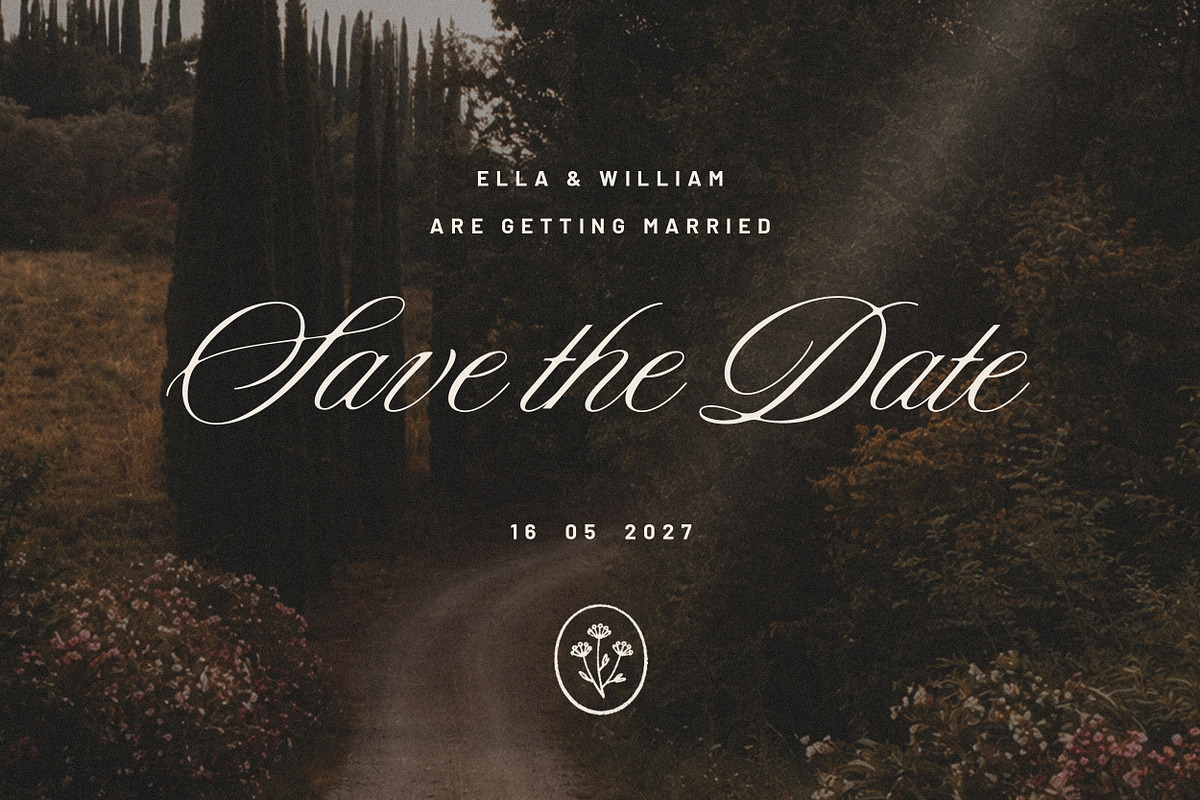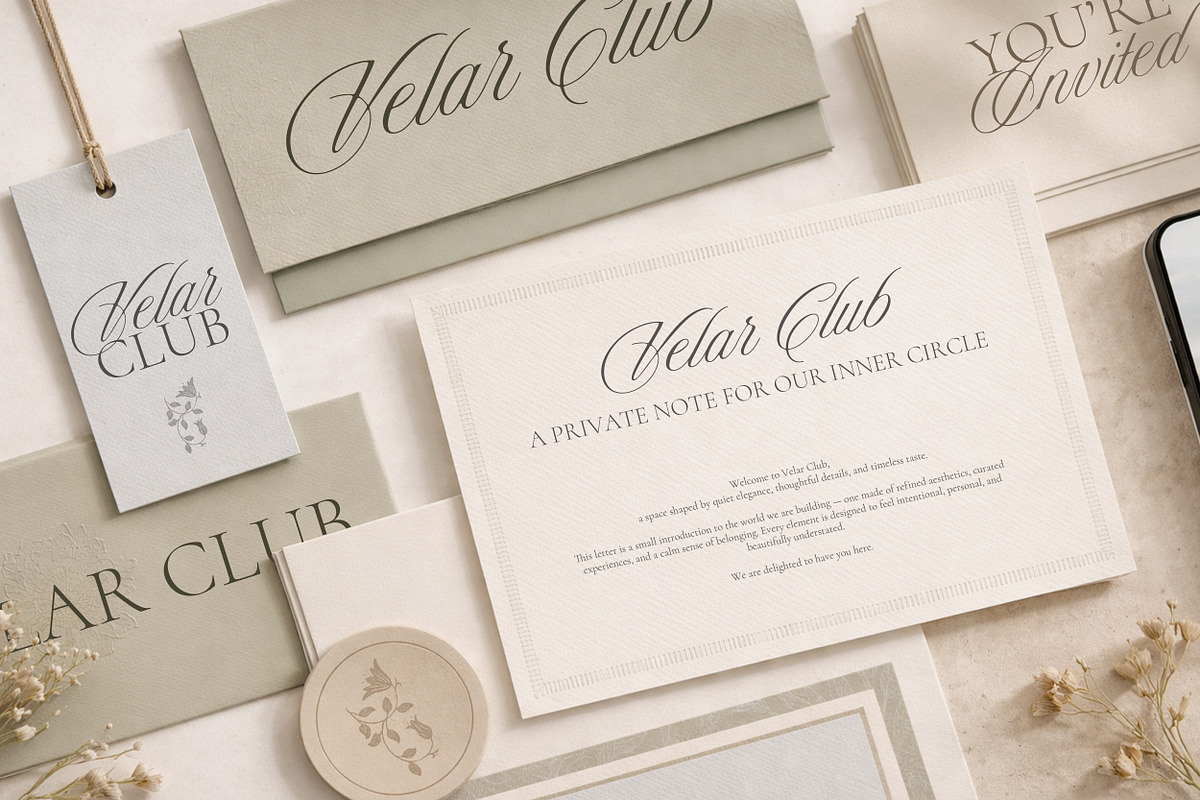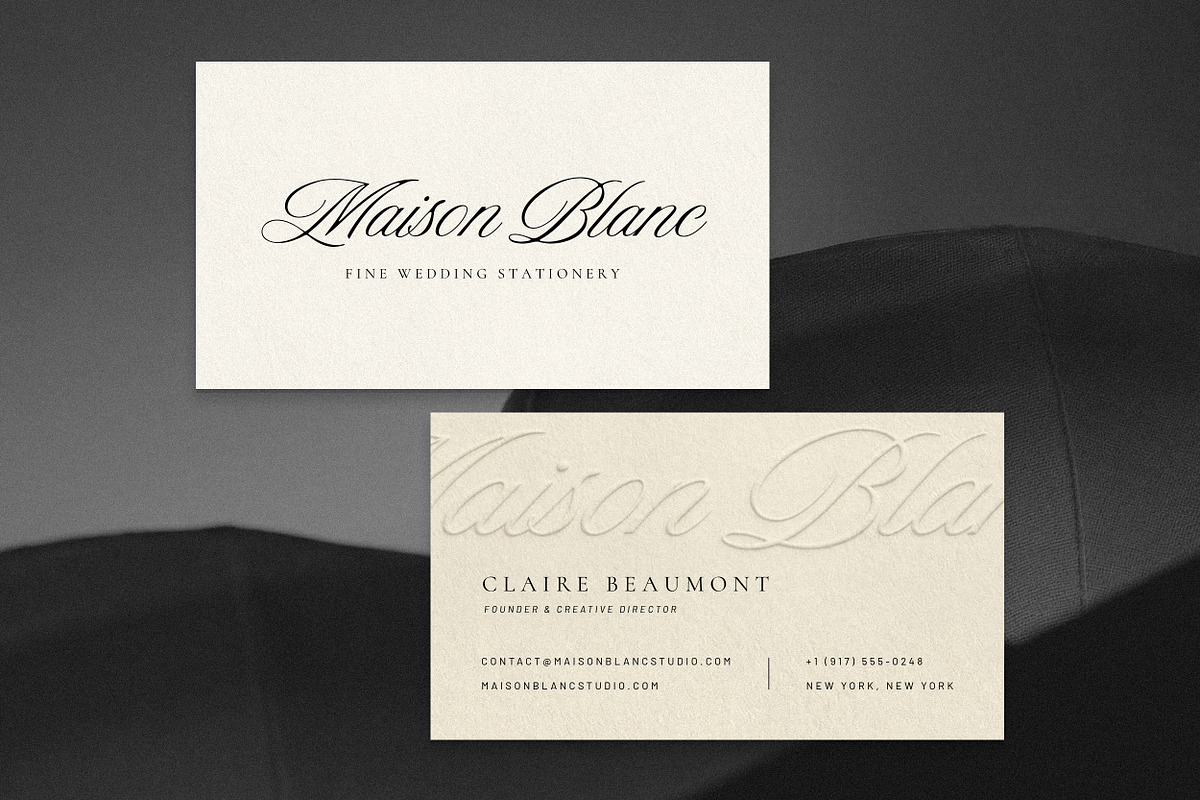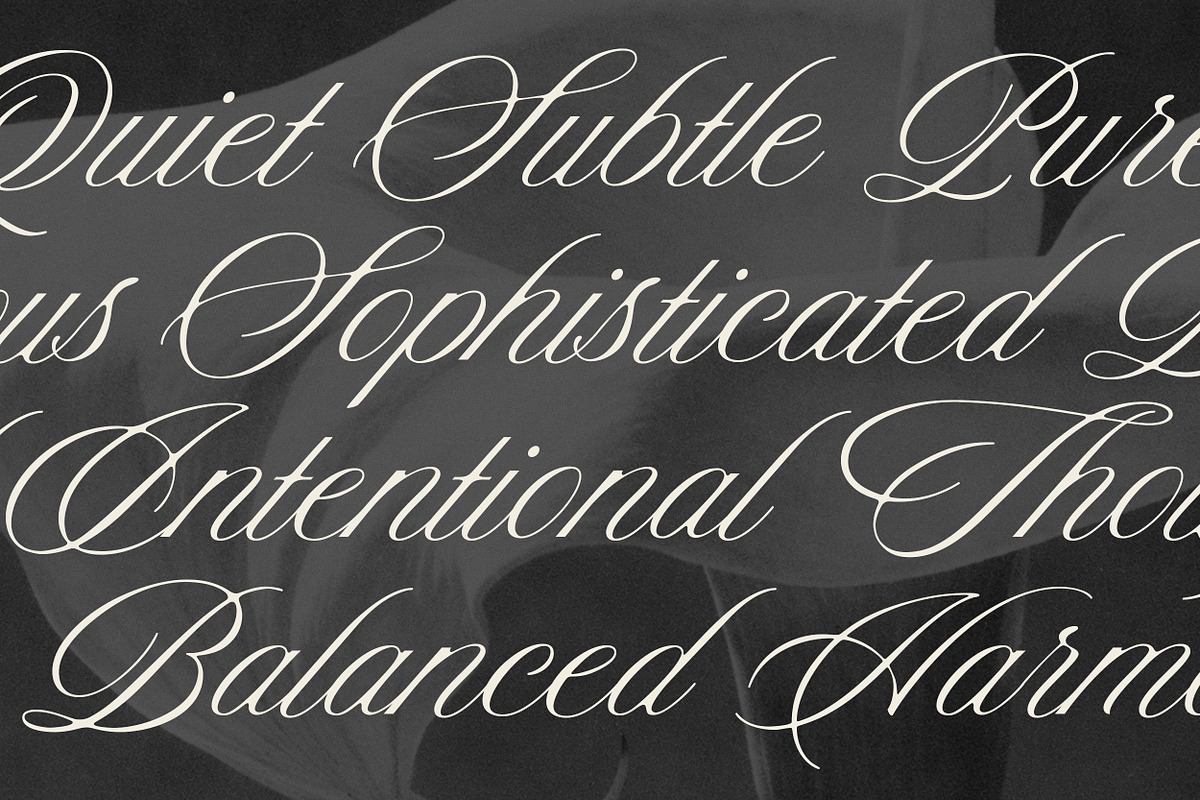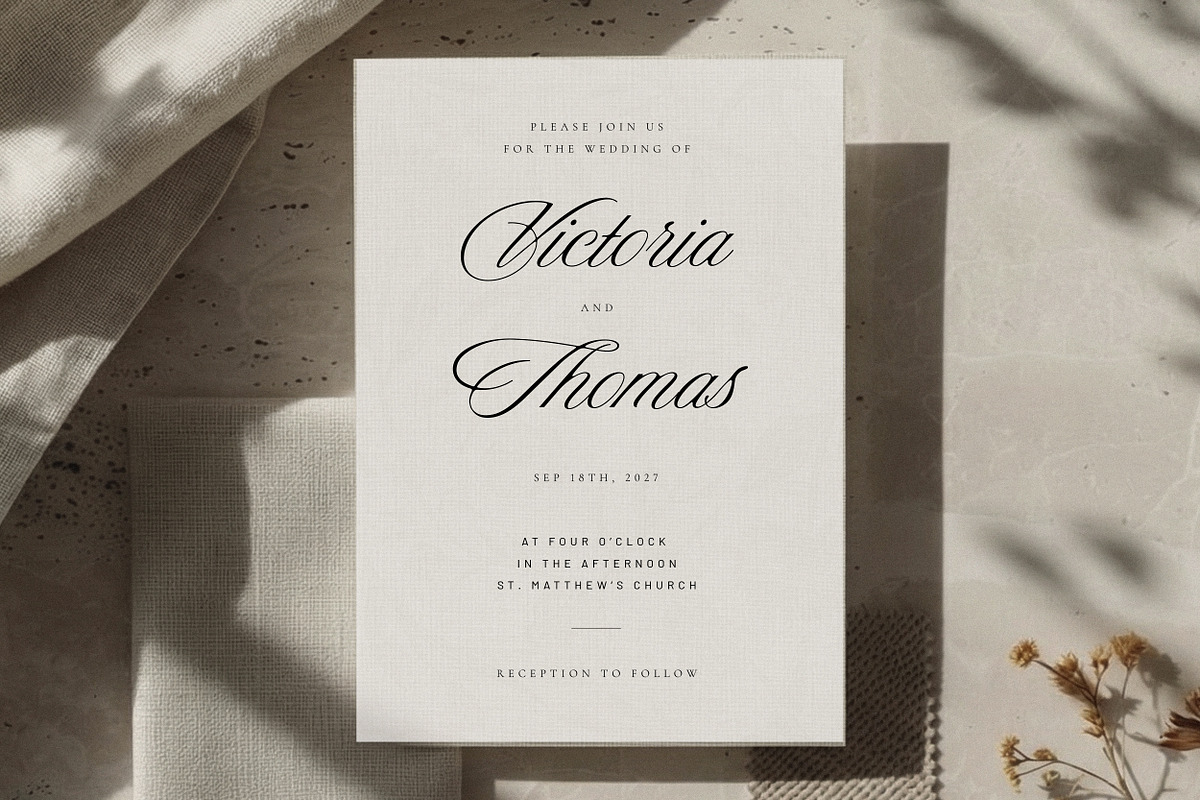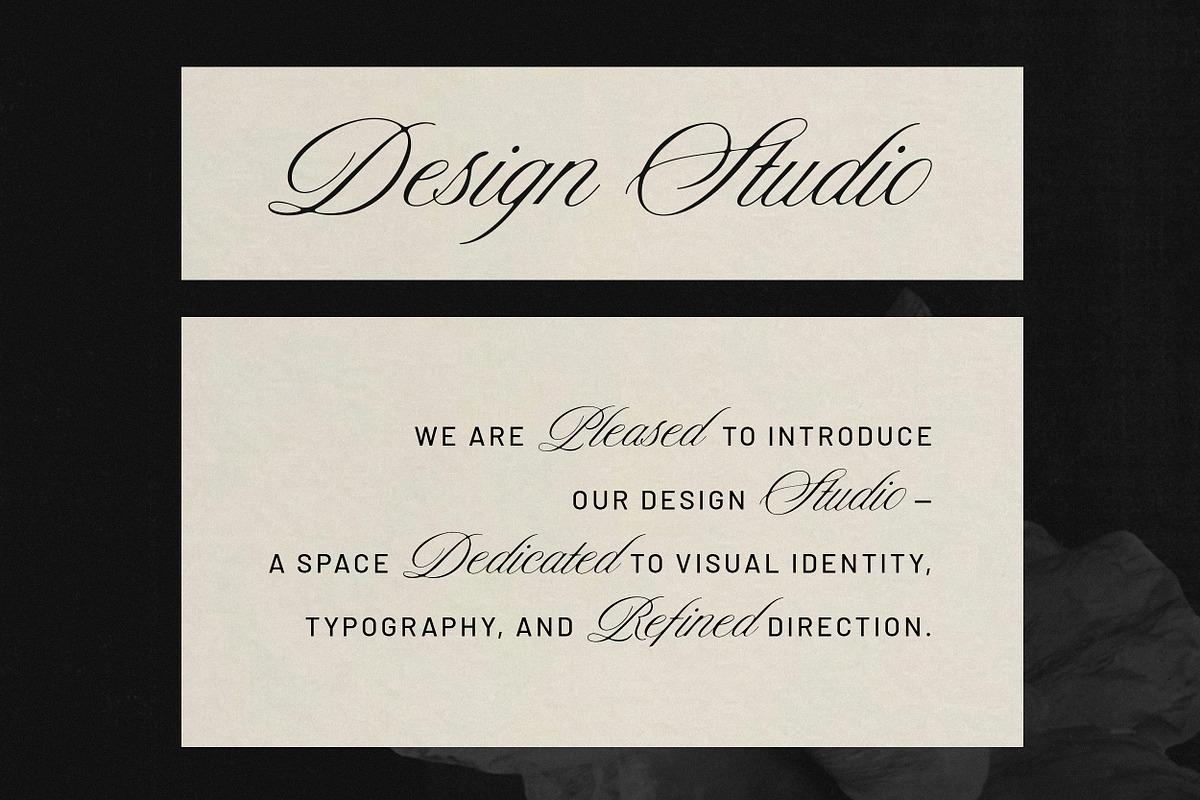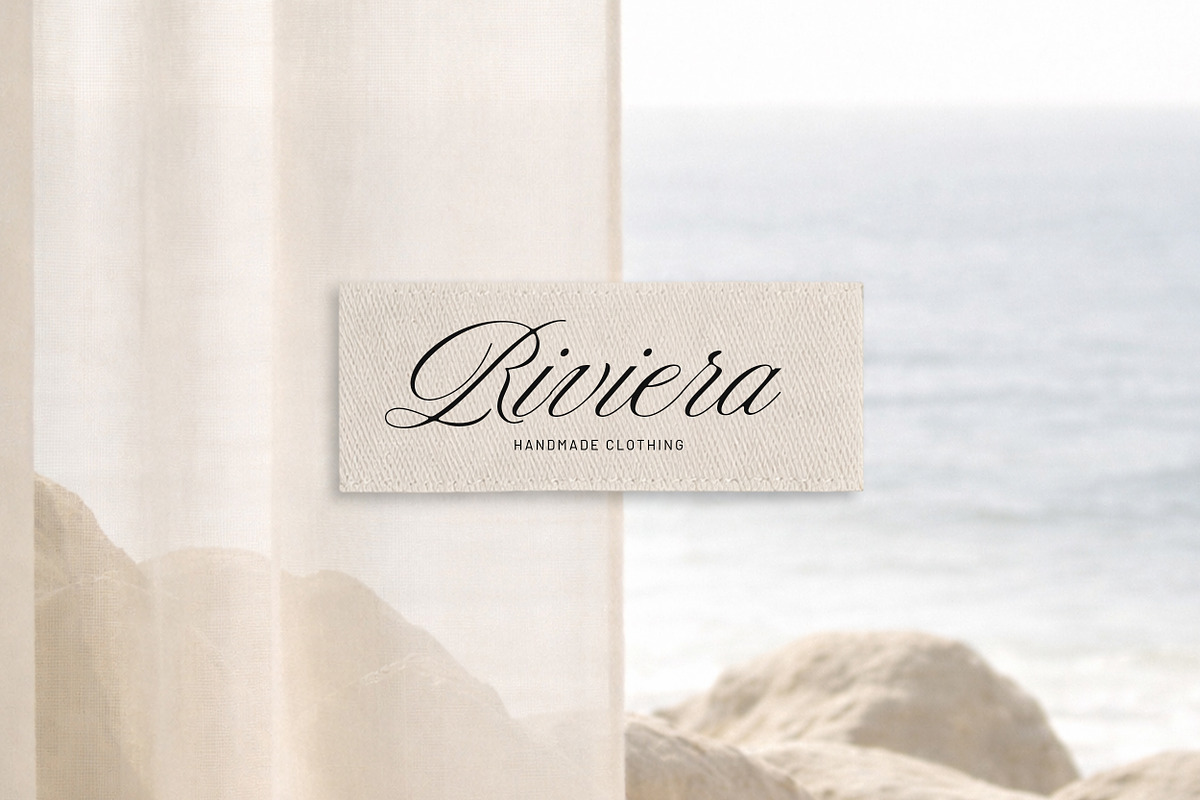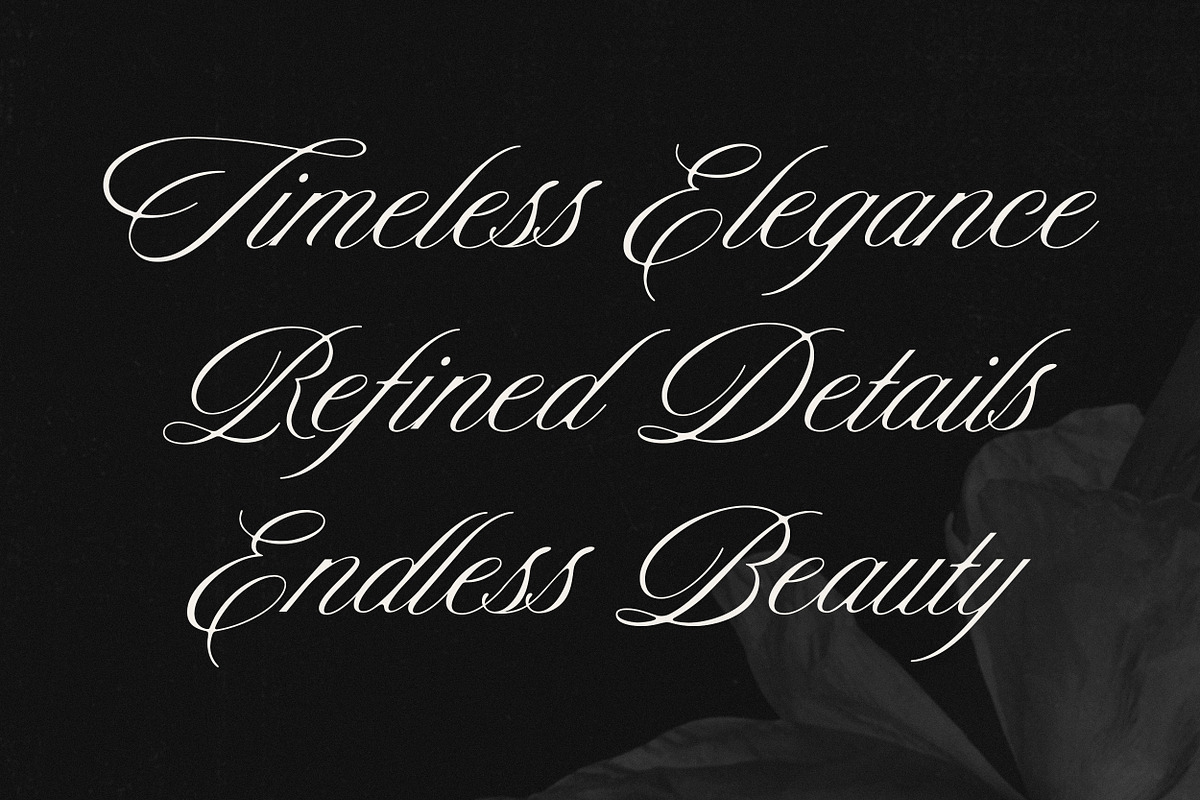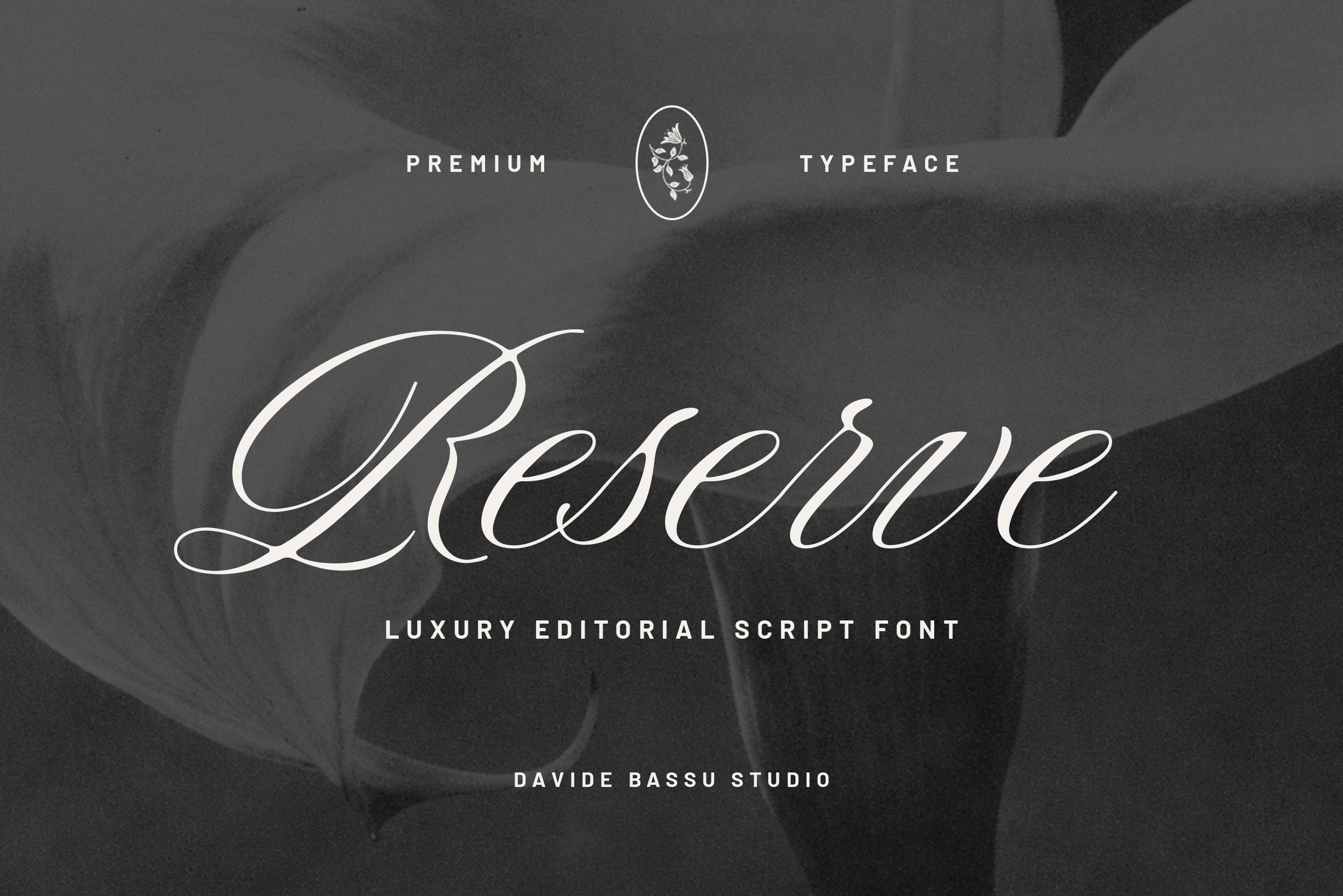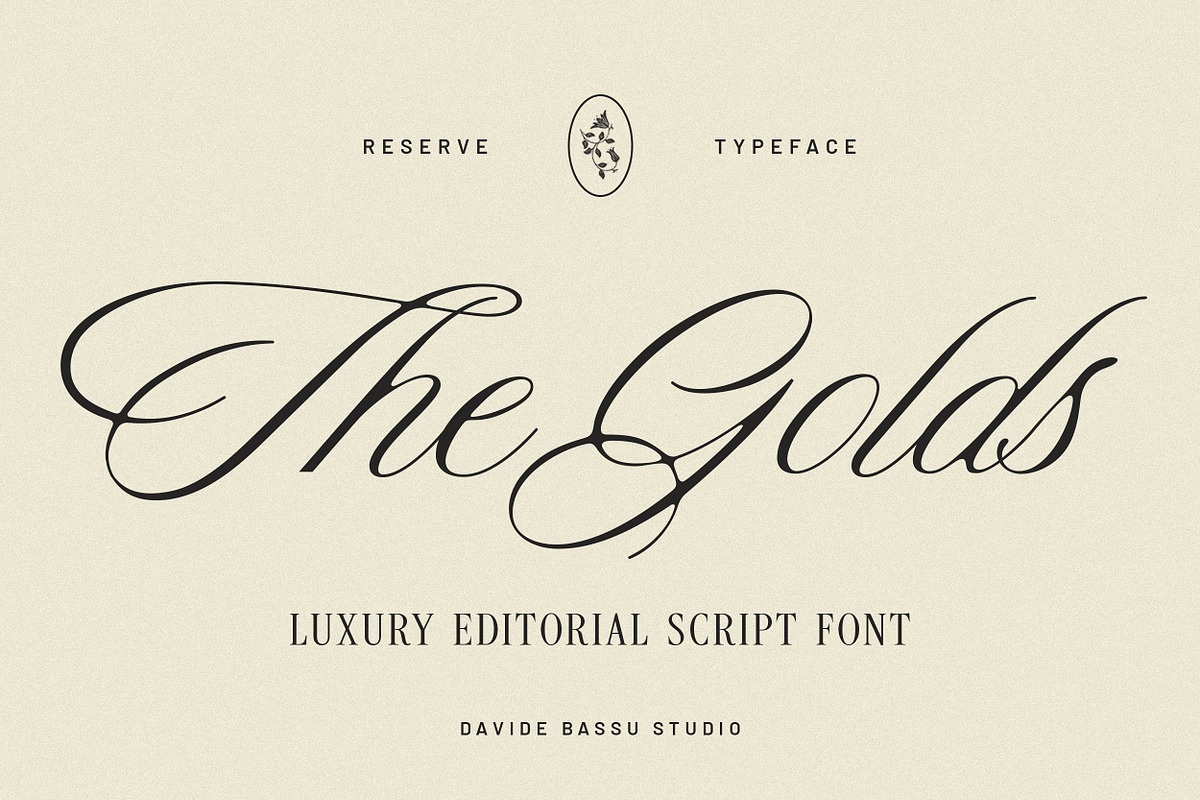
Reserve - Luxury Script Font
Reserve is an elegant script typeface with a strong editorial feel. It’s designed to bring a sense of balance between softness and structure, with flowing strokes, refined details, and subtle contrast.
The letterforms are expressive but controlled, making it easy to use across different contexts — from wedding stationery and invitations to branding, packaging, and social content. It has a timeless quality, but still feels current and versatile.
Reserve works especially well for names, titles, and short phrases where you want the typography to stand out without feeling overdone. The overall look is clean, sophisticated, and slightly romantic, with just the right amount of personality.